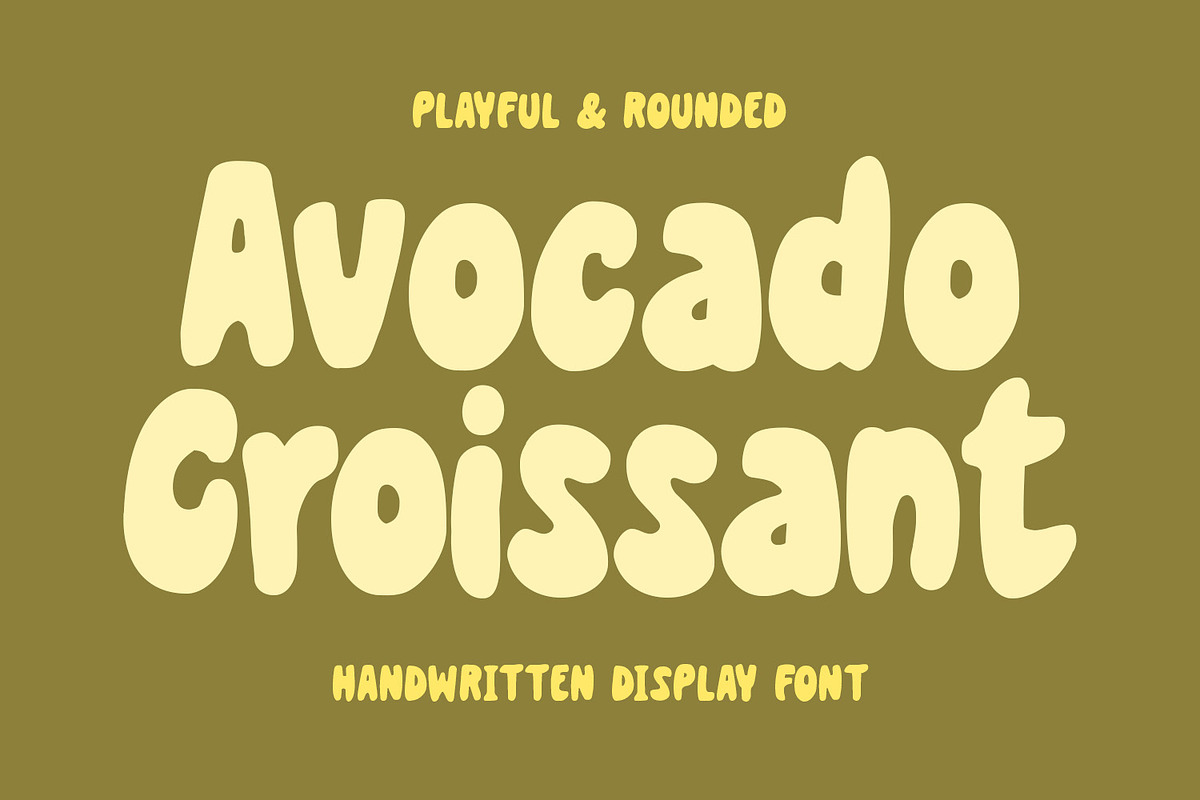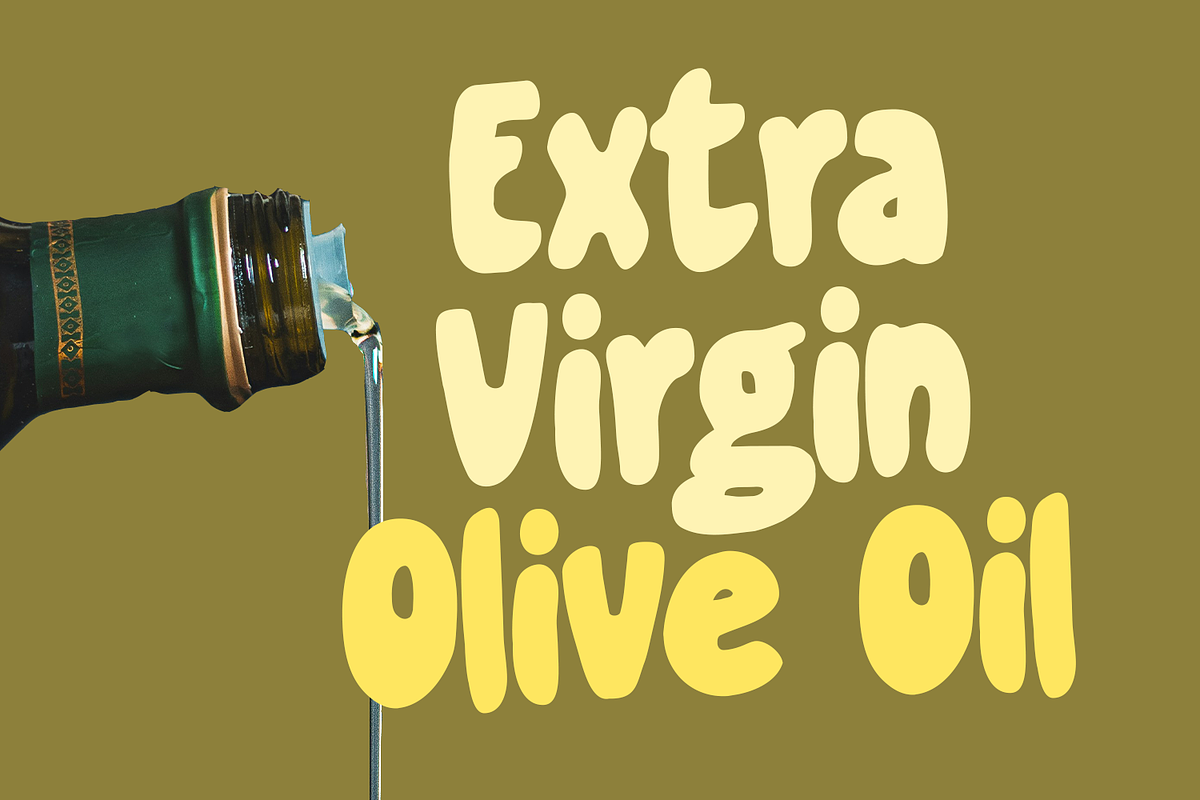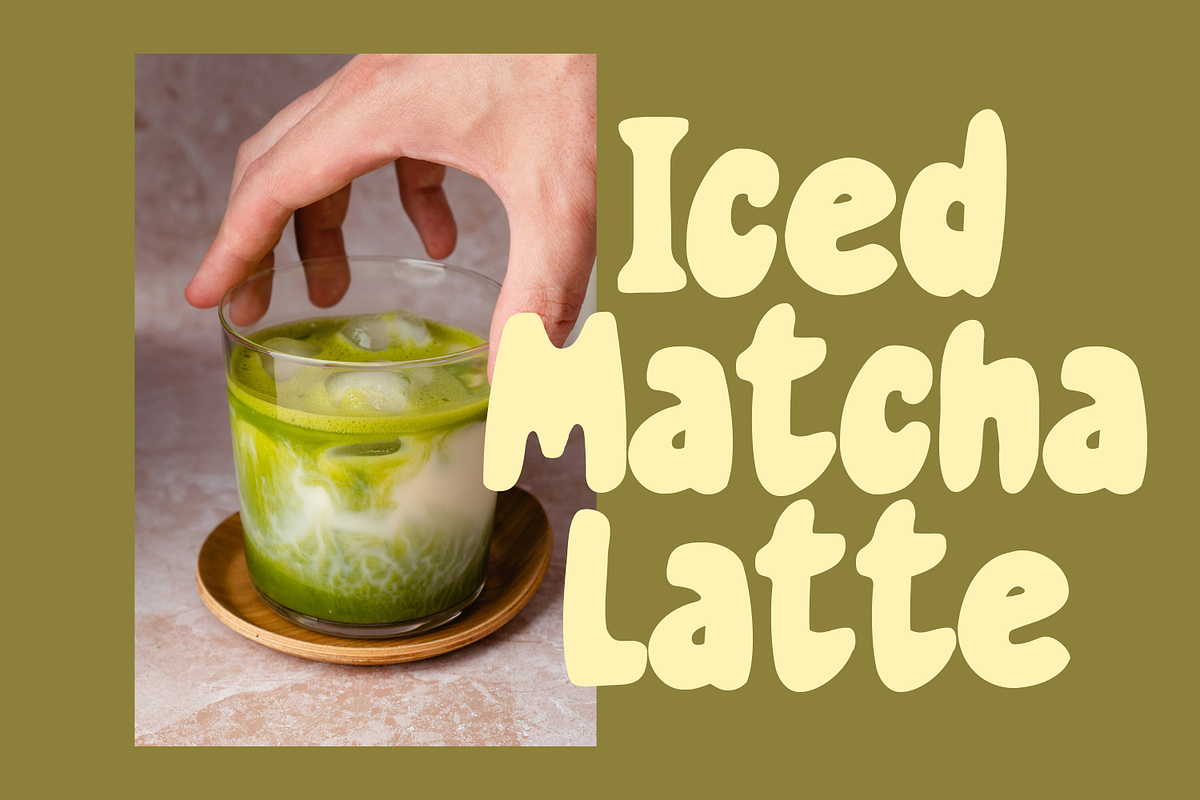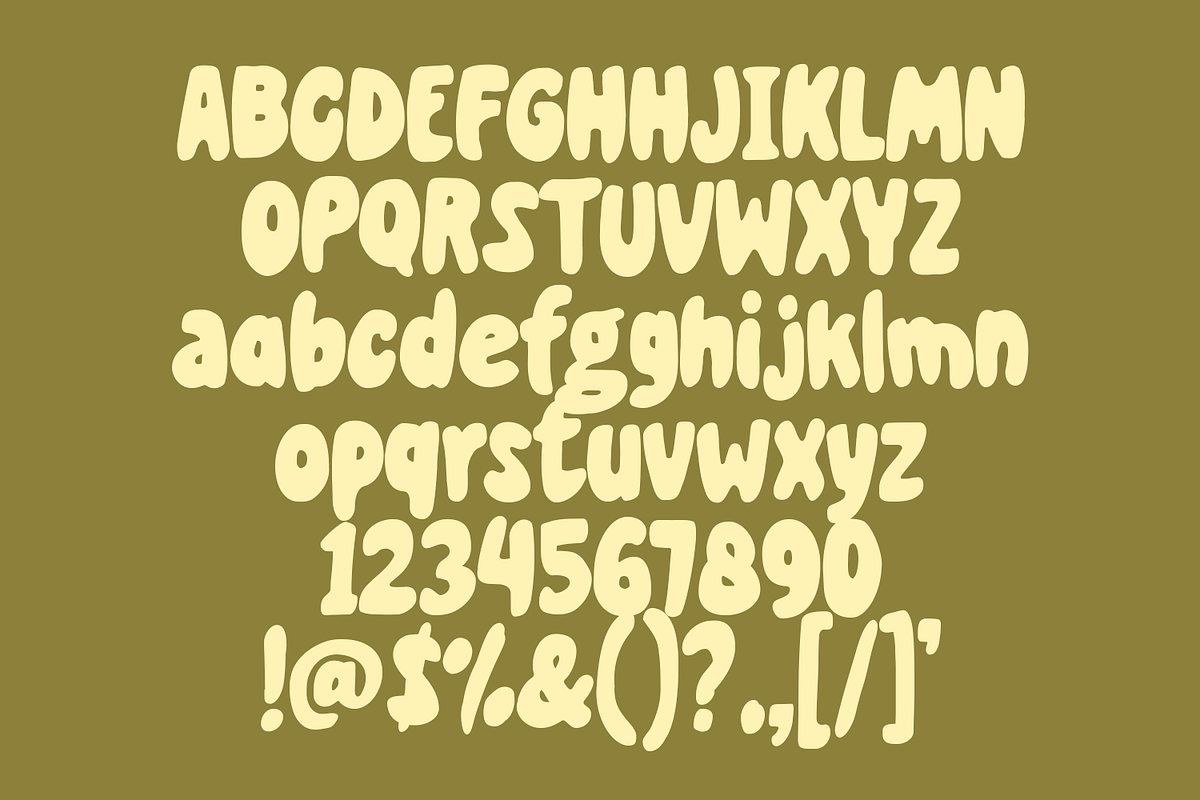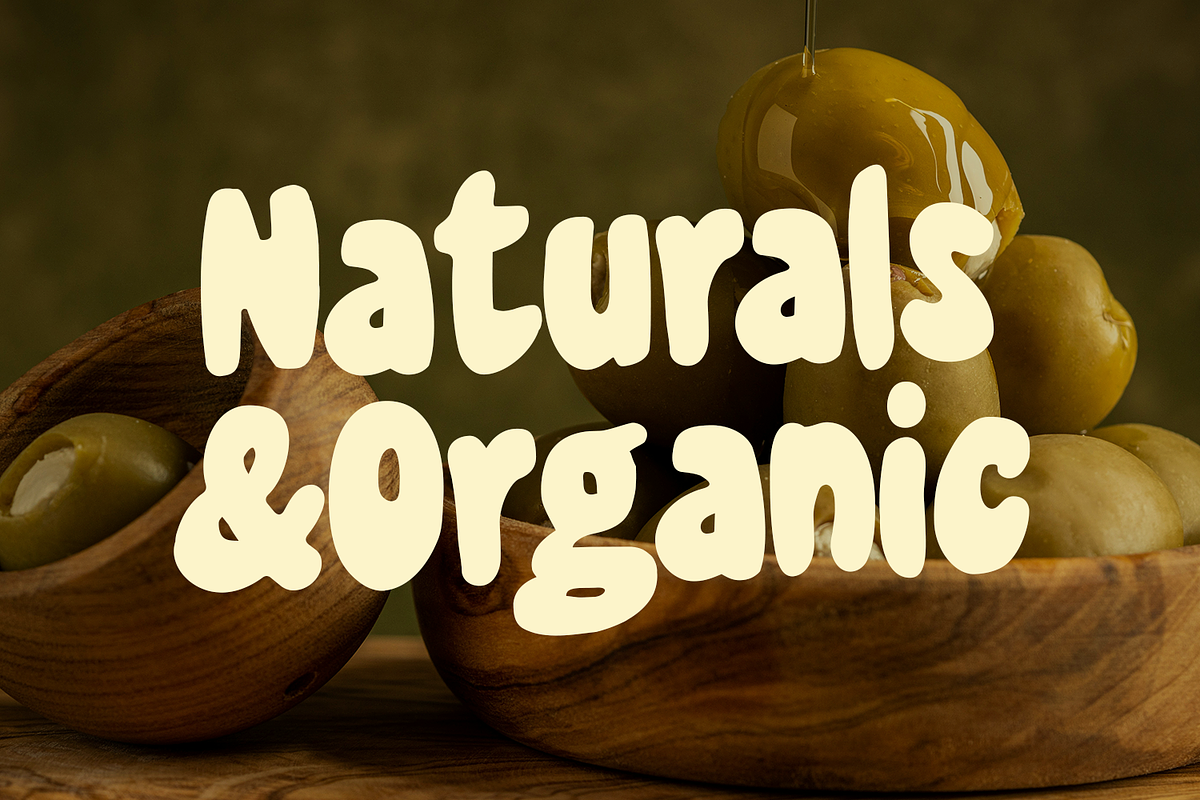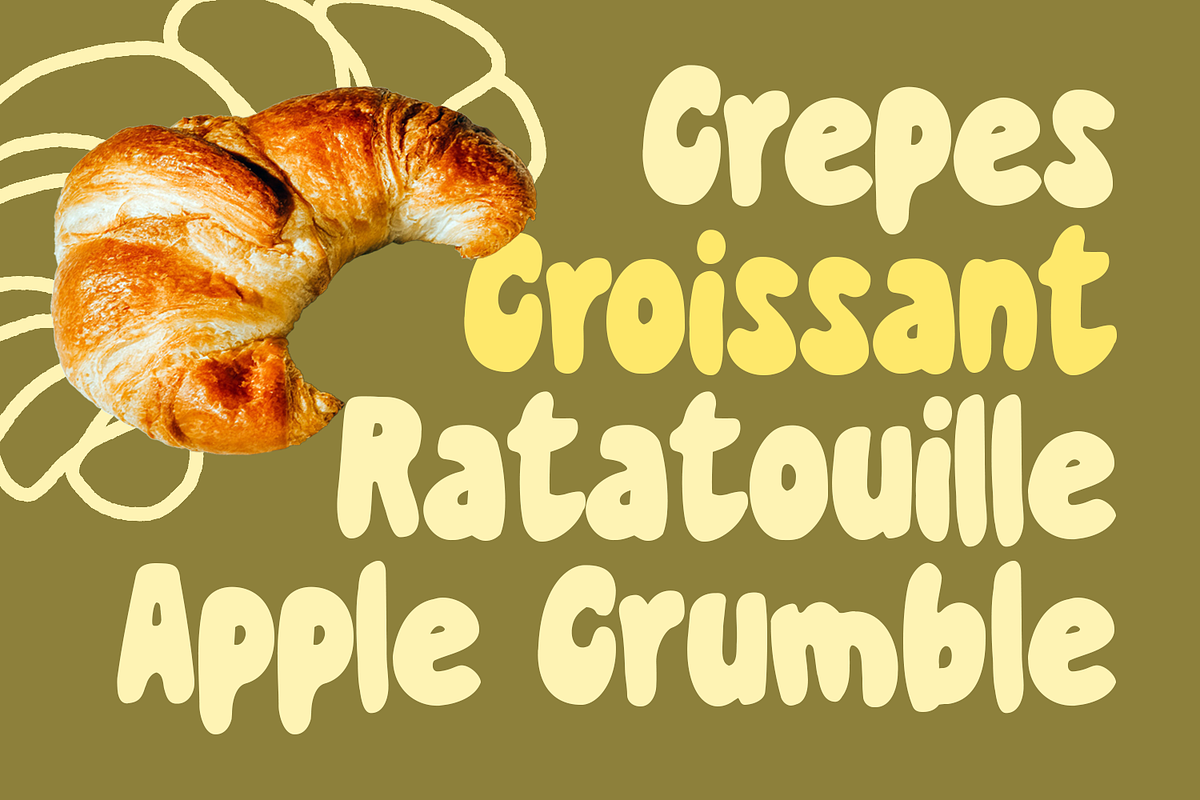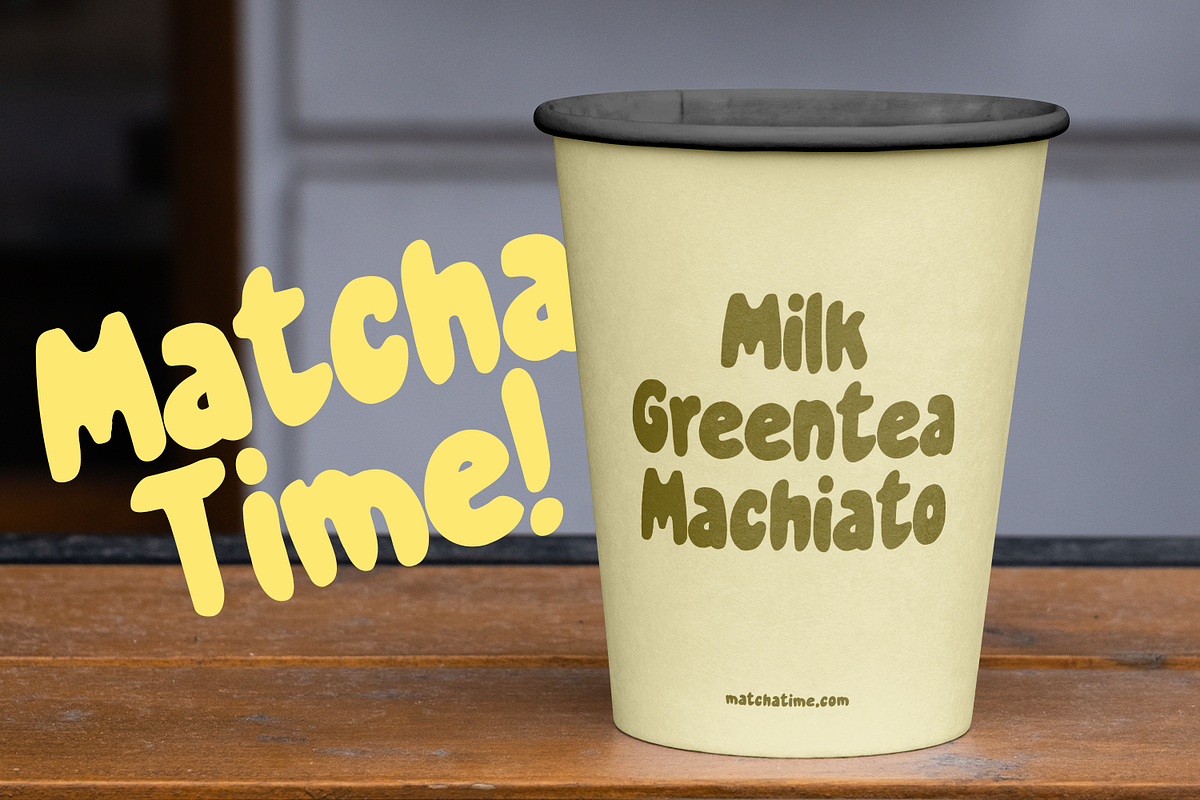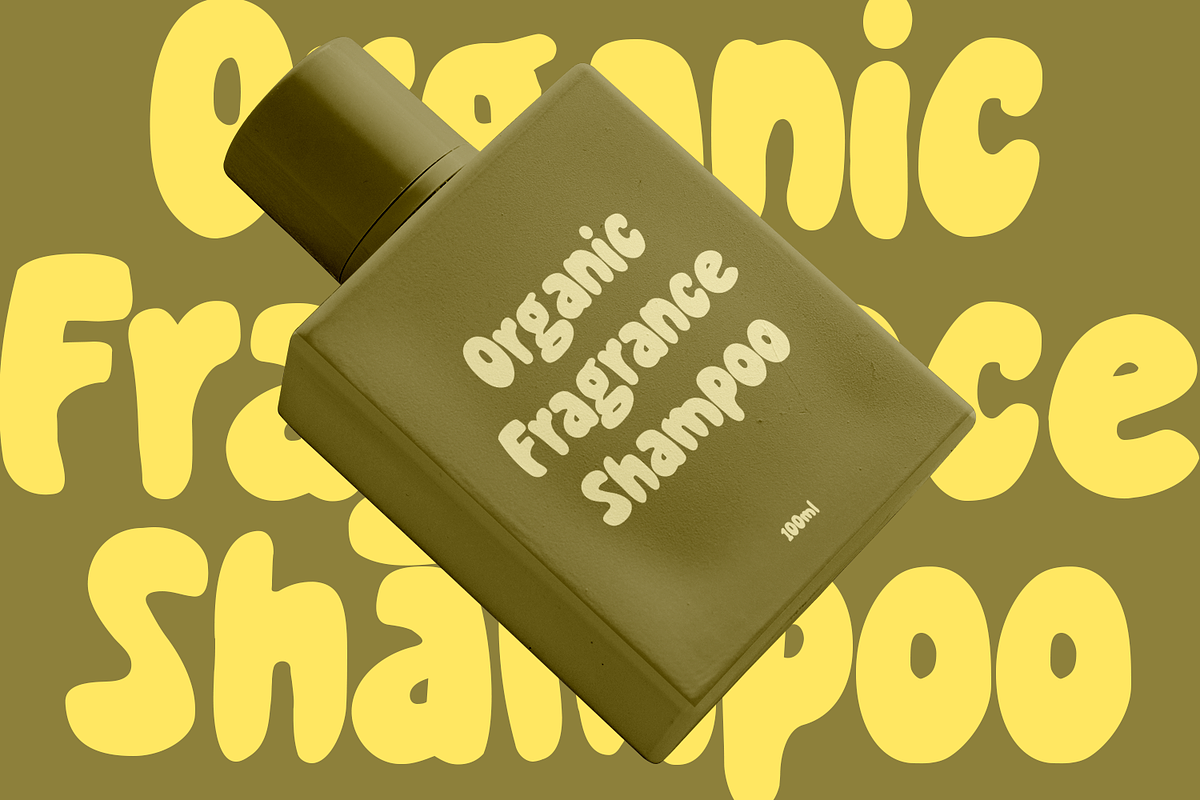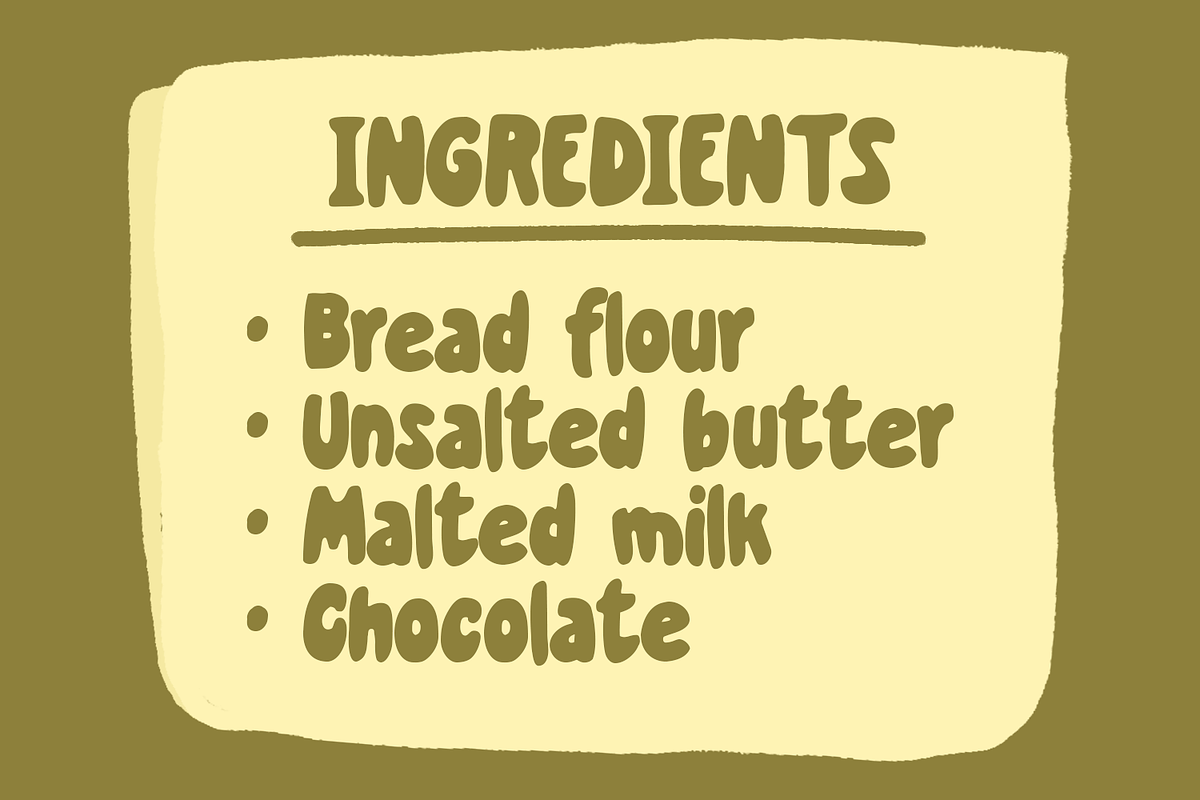
Avocado Croissant - Playful Font
Avocado Croissant is a playful, rounded handwritten display font that feels warm and friendly, like a fresh pastry from a café. Its soft curves make it perfect for logos, food branding, packaging, posters, and social media designs. Fun, bold, and approachable, this font brings charm and personality to any project. Add Avocado Croissant to your collection and make your designs stand out with a sweet and cheerful touch.